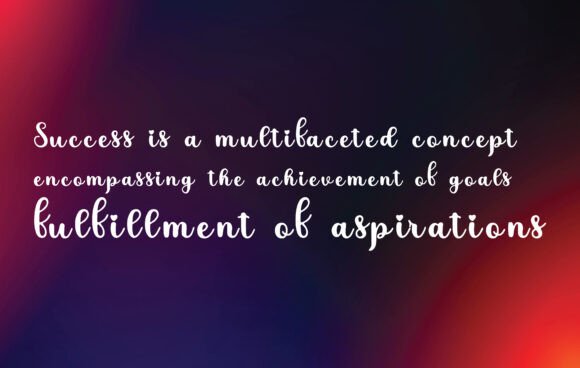
Introducing Coati Font: Elevate Your Creative Projects with a Lovely Handwritten Style
Are you a designer, craftsperson, or creative enthusiast looking for a font that can take your projects to the next level? Look no further than Coati Font, a beautiful and lovely handwritten font that is sure to capture your audience’s attention. In this article, we’ll explore the features and benefits of Coati Font, and how it can be the perfect choice for creating eye-catching logos, branding, and quotes.
What is Coati Font?
Coati Font is a stunning handwritten font that boasts a unique and charming style. Its elegant and flowing lines make it perfect for a wide range of creative projects, from logos and branding to quotes and social media graphics. With Coati Font, you can add a personal touch to your designs and make them stand out from the crowd.
Key Features of Coati Font
- Handwritten style: Coati Font features a beautiful handwritten style that is both elegant and playful.
- Unique and charming: The font’s unique and charming style makes it perfect for creating eye-catching designs that capture your audience’s attention.
- Versatile: Coati Font is versatile and can be used for a wide range of creative projects, from logos and branding to quotes and social media graphics.
- Easily readable: The font is easily readable, making it perfect for body text and captions.
Benefits of Using Coati Font
So, why choose Coati Font for your creative projects? Here are just a few benefits of using this lovely handwritten font:
- Adds a personal touch: Coati Font adds a personal touch to your designs, making them more relatable and engaging.
- Creates emotional connections: The font’s elegant and flowing lines create an emotional connection with your audience, making them more likely to engage with your content.
- Perfect for branding: Coati Font is perfect for creating brand identities that are both unique and memorable.
Use Cases for Coati Font
So, how can you use Coati Font in your creative projects? Here are just a few ideas to get you started:
- Logos and branding: Use Coati Font to create eye-catching logos and branding that captures your audience’s attention.
- Quotes and social media graphics: Use the font to create inspiring quotes and social media graphics that resonate with your audience.
- Invitations and stationery: Use Coati Font to create beautiful invitations and stationery that add a personal touch to your correspondence.
- Packaging and product design: Use the font to create eye-catching packaging and product designs that stand out on store shelves.
Tips for Using Coati Font
Here are just a few tips for using Coati Font in your creative projects:
- Use it sparingly: Use Coati Font sparingly to add emphasis and create visual interest.
- Experiment with colors: Experiment with different colors and textures to add depth and dimension to your designs.
- Pair it with other fonts: Pair Coati Font with other fonts to create a unique and visually appealing typography.
In conclusion, Coati Font is a lovely and beautiful handwritten font that is perfect for taking your creative projects to the next level. With its unique and charming style, Coati Font is sure to capture your audience’s attention and add a personal touch to your designs. Whether you’re a designer, craftsperson, or creative enthusiast, Coati Font is a great choice for creating eye-catching logos, branding, and quotes.